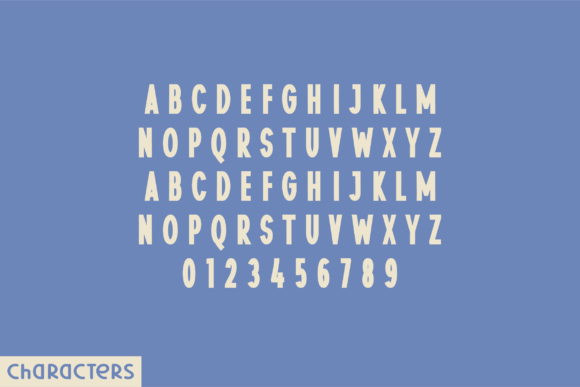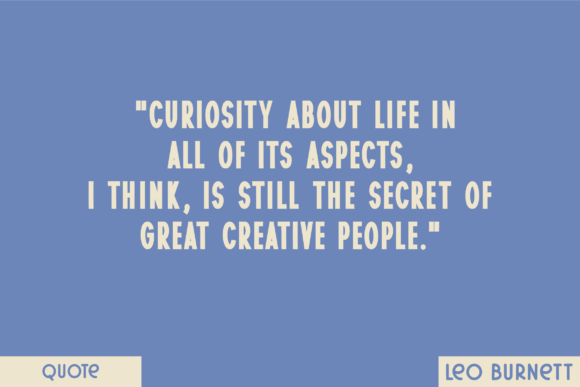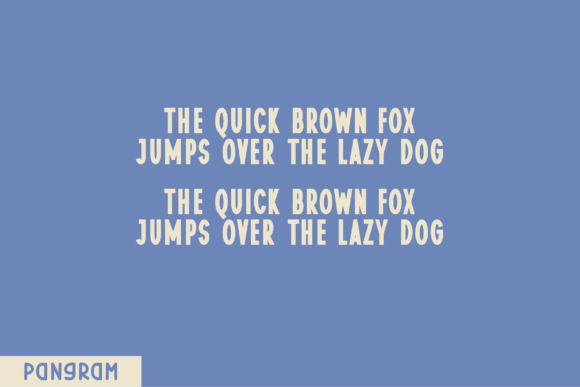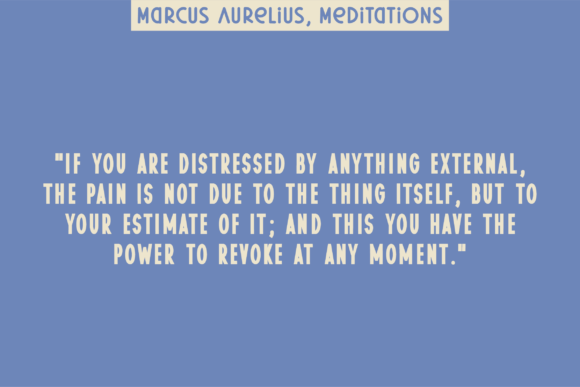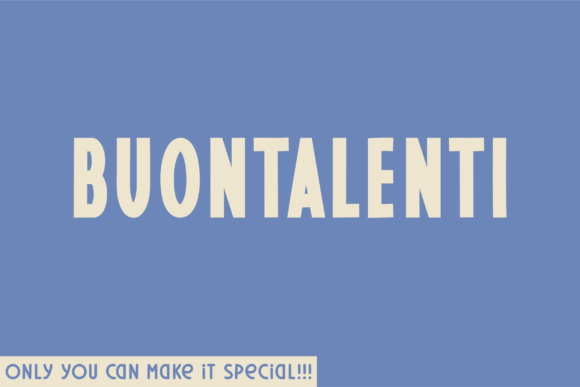
The Buontalenti Font: A Designer’s New Best Friend
I still remember the design project that led me to discover the Buontalenti font. I was working on a client’s branding project, and I was struggling to find the perfect font that would capture the essence of their brand. The client wanted something unique, modern, and elegant, but also highly legible. After hours of searching through font libraries, I stumbled upon Buontalenti, and it was love at first sight! ✨
The Buontalenti font is a natural sans serif font created without changing a single node in each character’s indentation, making it truly one-of-a-kind. Its uniqueness lies in its ability to add a touch of personality to any design project, from quotes and notes to tees and product designs.
- ✨ Unique and distinctive character design
- ✅ Works well for both digital and print designs
- ✅ Perfect for quotes, notes, and other text-based designs
While Buontalenti is an amazing font, there are a few things to keep in mind: 🤔
- ⚠️ Limited language support (currently only supports Latin-based languages)
- ⚠️ May not work well for very long blocks of text
The Story Behind Buontalenti
The Buontalenti font is named after Giulio Buontalenti, a renowned Italian architect and engineer. The font’s creator was inspired by Buontalenti’s work and aimed to capture the essence of his designs in a modern sans serif font. While the story behind Buontalenti may be fictional, it’s clear that the font’s creator was inspired by the beauty of Italian architecture and design.
Q: What is the Buontalenti font?
A: Buontalenti is a natural sans serif font created without changing a single node in each character’s indentation.
Q: What languages does Buontalenti support?
A: Currently, Buontalenti only supports Latin-based languages.